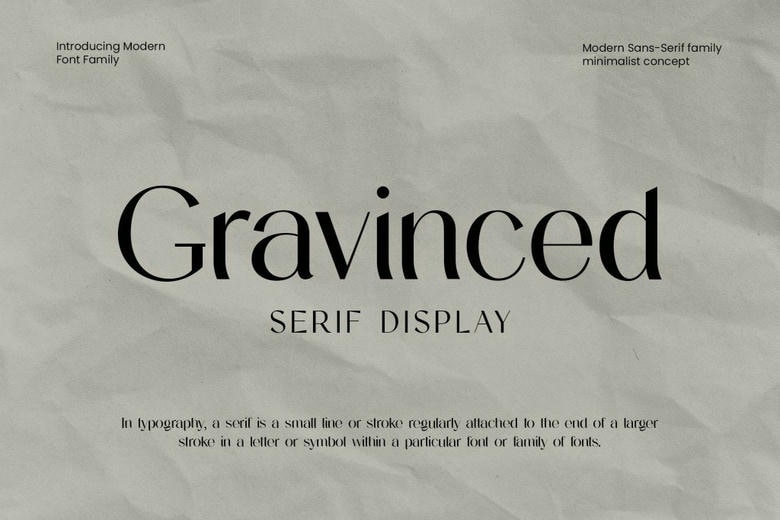
Gravinced Font
Gravinced is a Free Fonts Blog featuring font categories such as Modern, Sans Serif, Display, and more. The modern display font looks and feels beautiful classy, elegant, and stylish. This font is perfect for the use in signature, stationery, logo, wedding, typography quotes, magazine or book covers, website headers, branding, and more. Furthermore, the fashion-related branding or the fashion editorial design contains the features of both men’s and women’s brands.
Gravinced Sans Serif Font